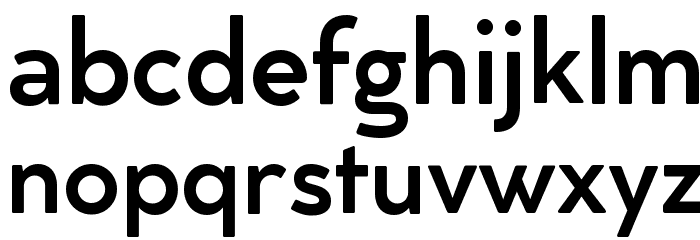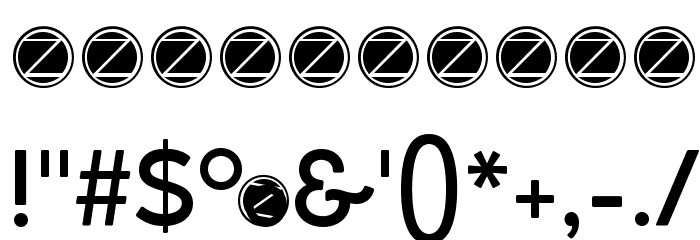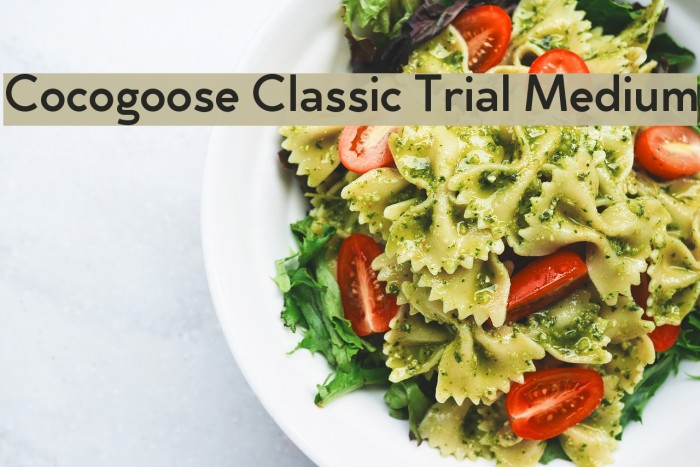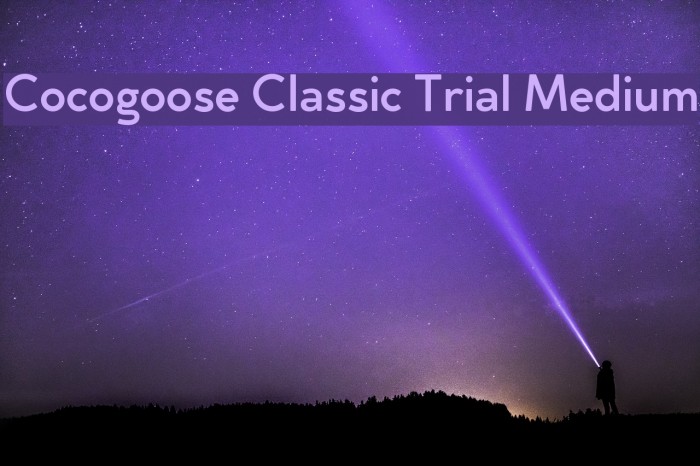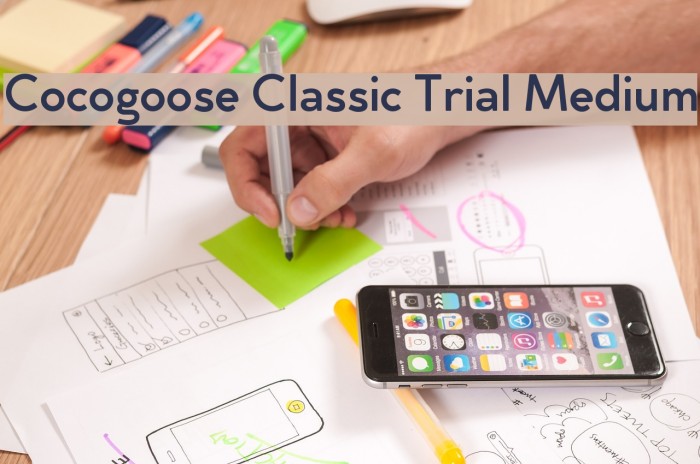
Cocogoose Classic Trial Medium Font
This font features a clean and modern sans-serif design with a geometric structure. The uppercase letters are bold and well-defined, offering a strong presence. The lowercase letters maintain a consistent style, with rounded edges that add a touch of softness to the overall appearance. The numerals are clear and easy to read, matching the style of the alphabet. Special characters are distinct and maintain the geometric theme, ensuring versatility in various design contexts. The font's uniformity and clarity make it suitable for a wide range of applications, from digital interfaces to print media.
A modern, geometric sans-serif font with bold, clean lines.
- Proposed Projects: Ideal for branding, digital interfaces, advertising, and editorial design.